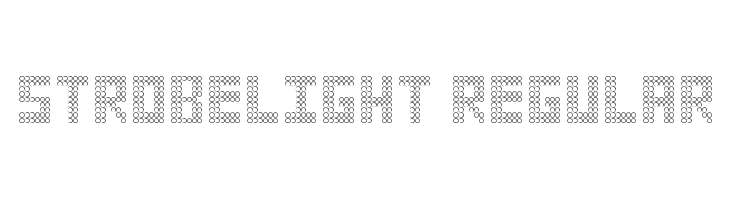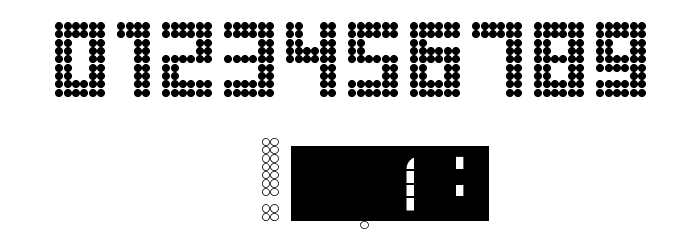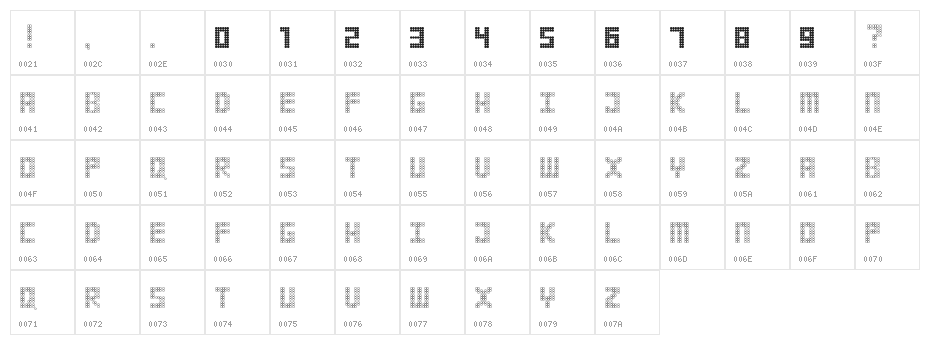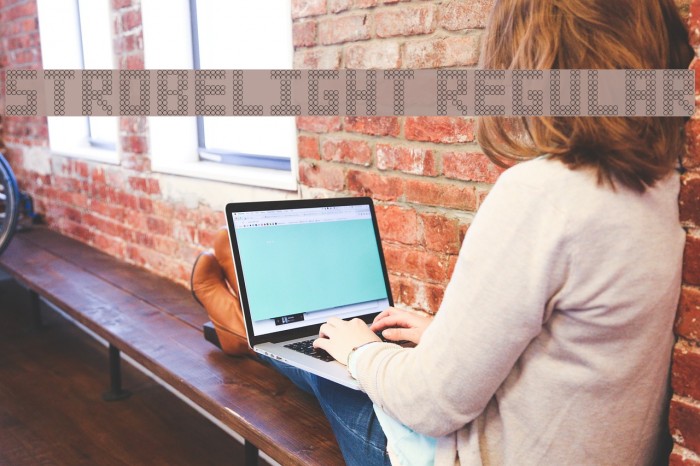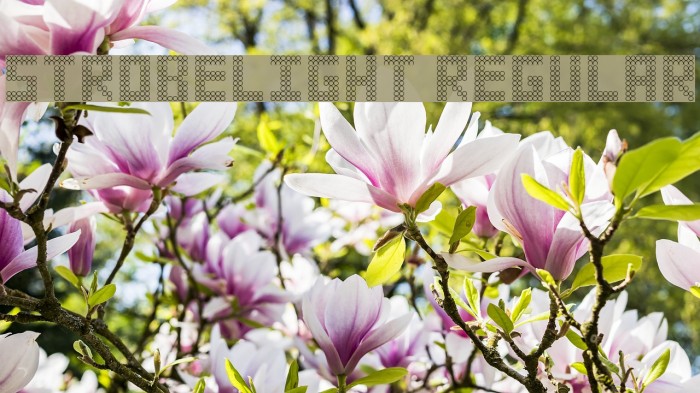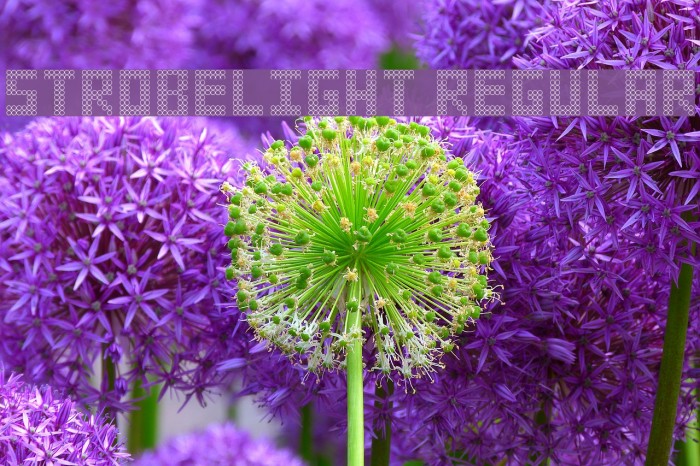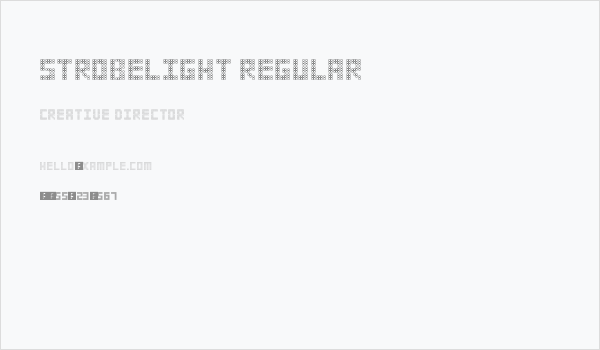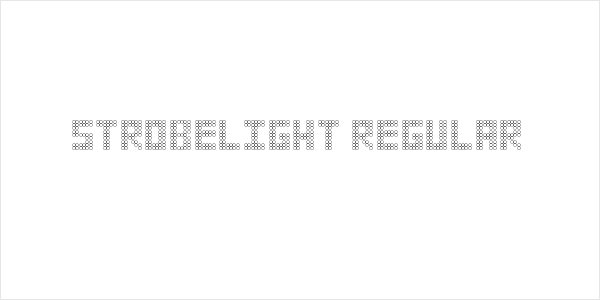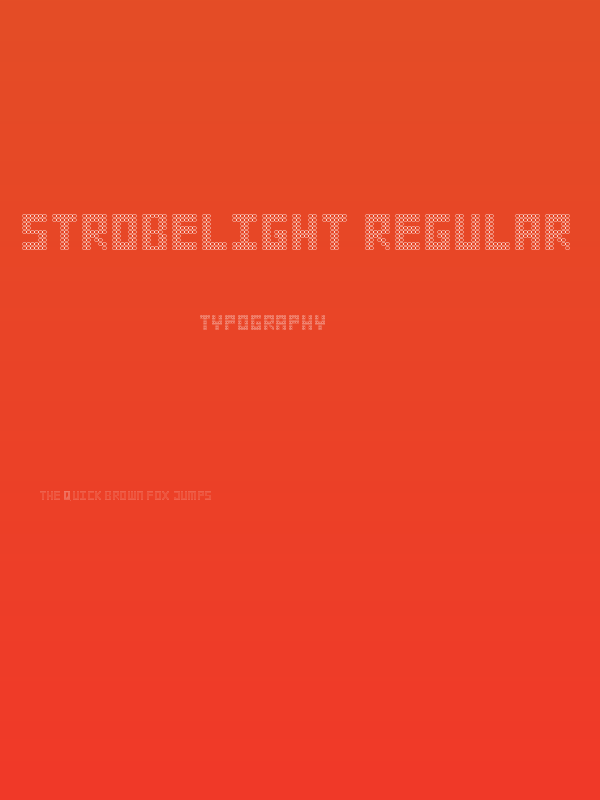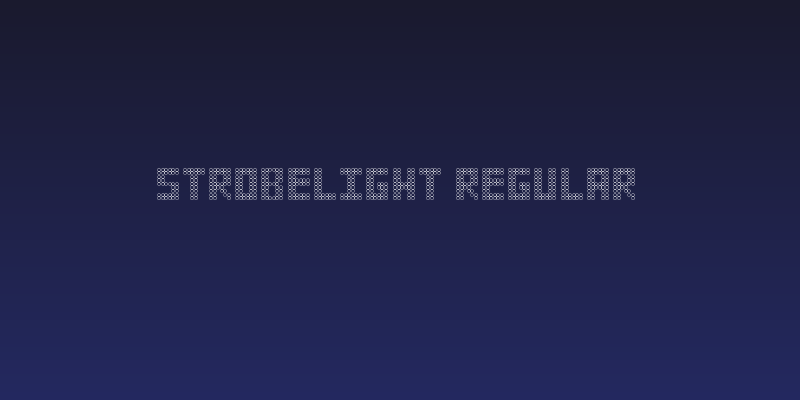
Strobelight Regular Font
Strobelight Regular Description
This font features a unique design composed of small, evenly spaced dots forming each character. The geometric arrangement gives it a digital, retro feel reminiscent of old LED displays or scoreboard screens. The uppercase and lowercase letters maintain a consistent height and width, creating a uniform appearance across the board. Numbers and special characters follow the same dot matrix pattern, ensuring a cohesive look. The font's style is both playful and technical, making it stand out in any design project.
| Use Case | Logos, Posters, Digital Displays |
| Proposed Projects | Ideal for digital-themed designs, retro video game graphics, tech-related branding, or any project seeking a vintage digital aesthetic. |